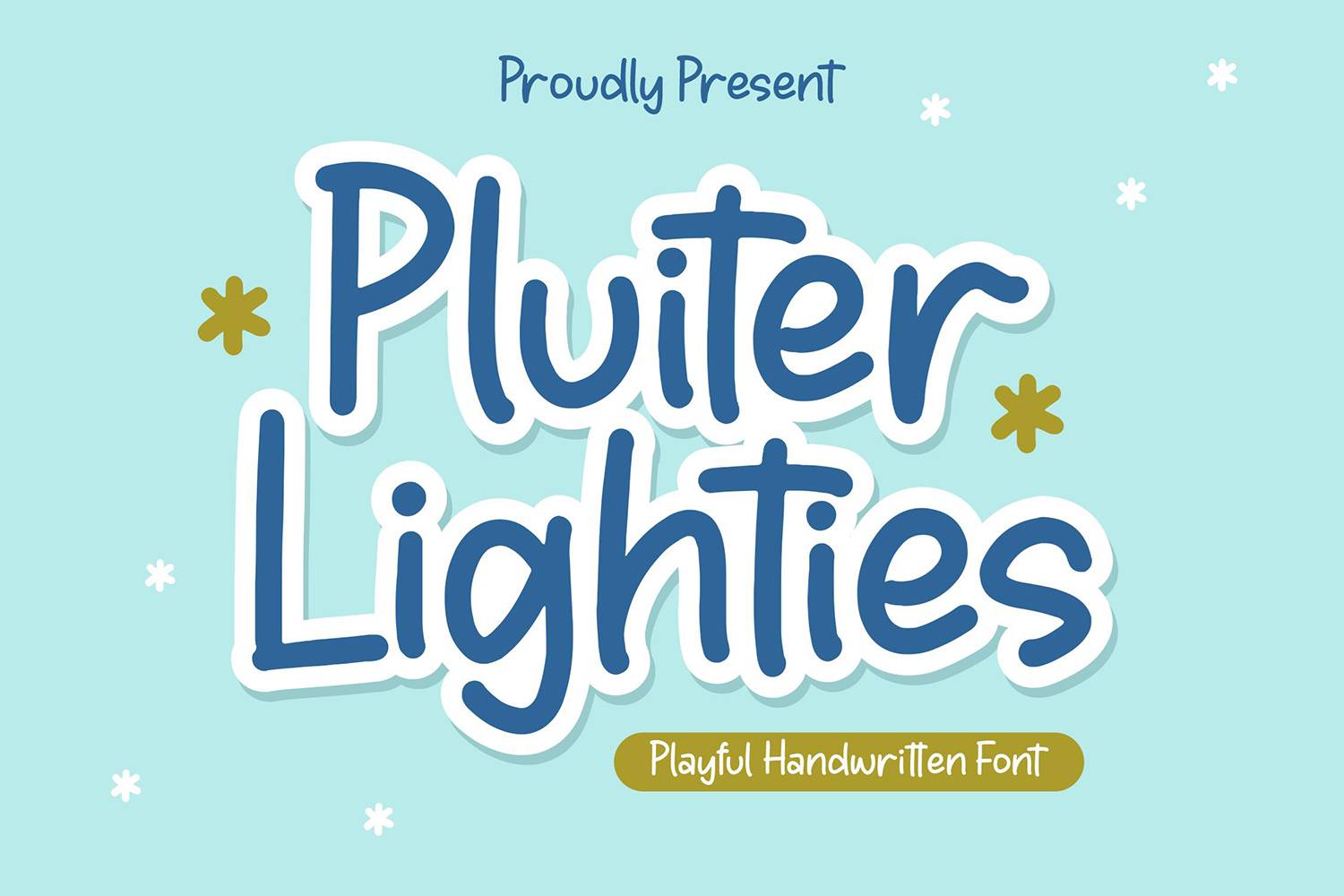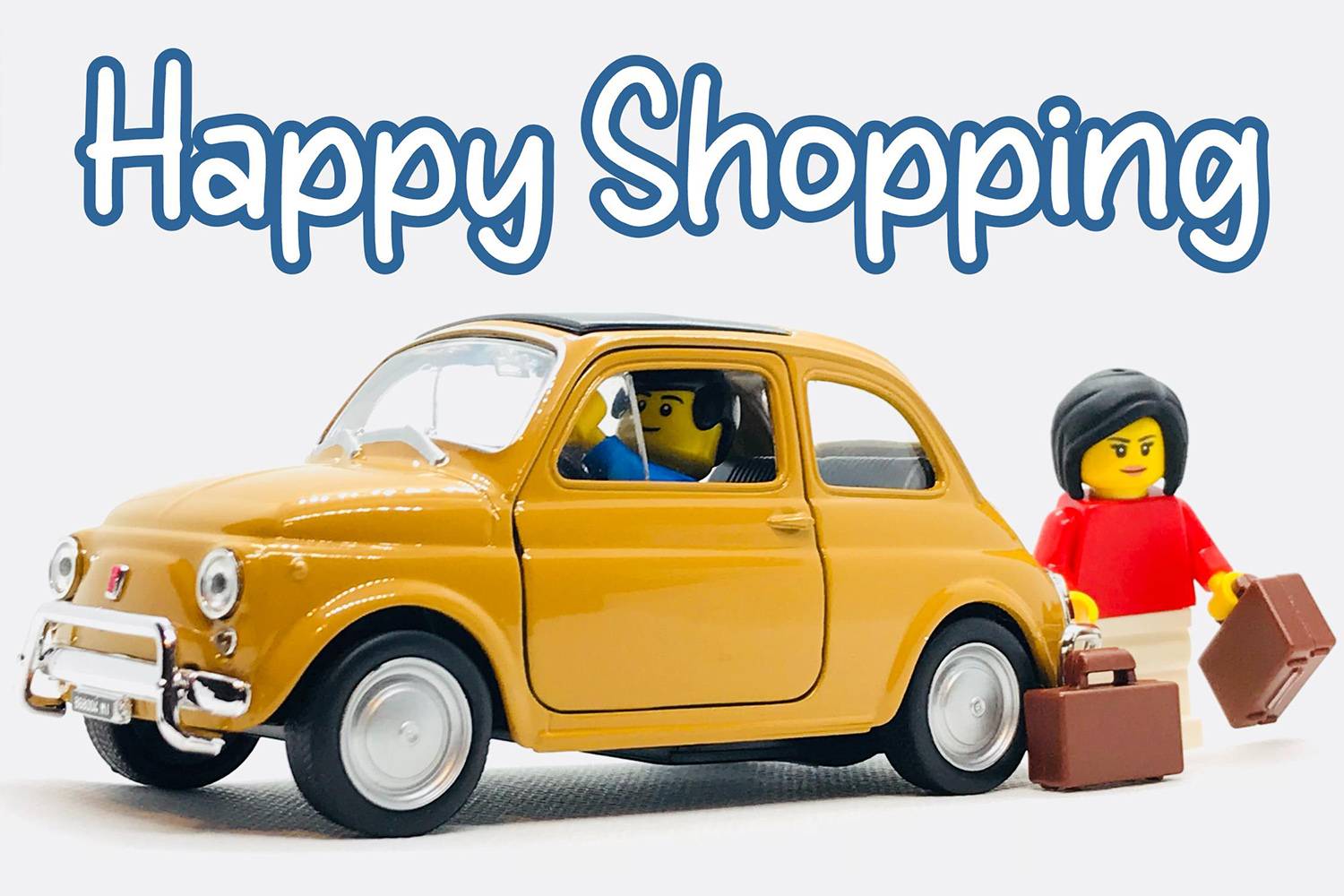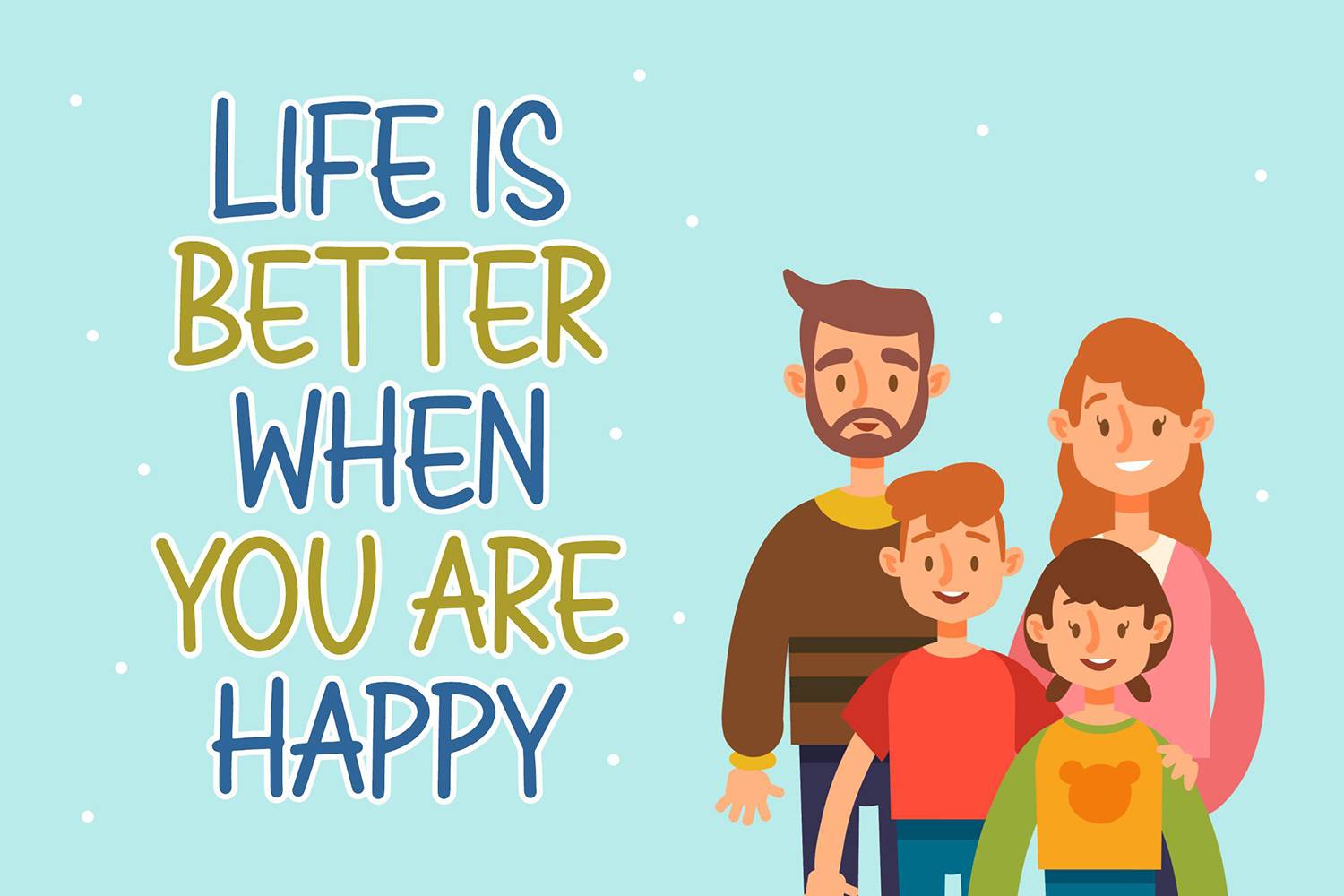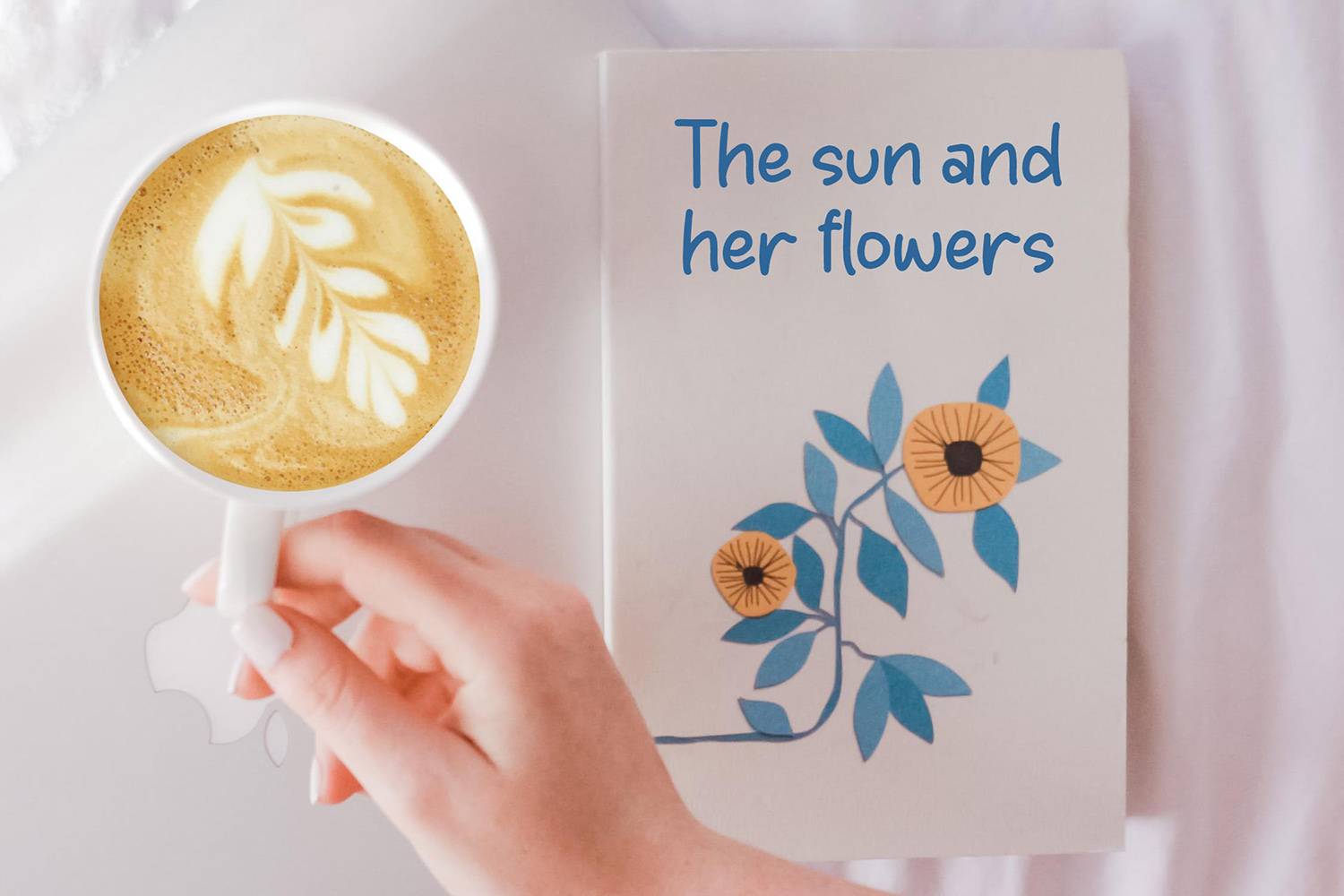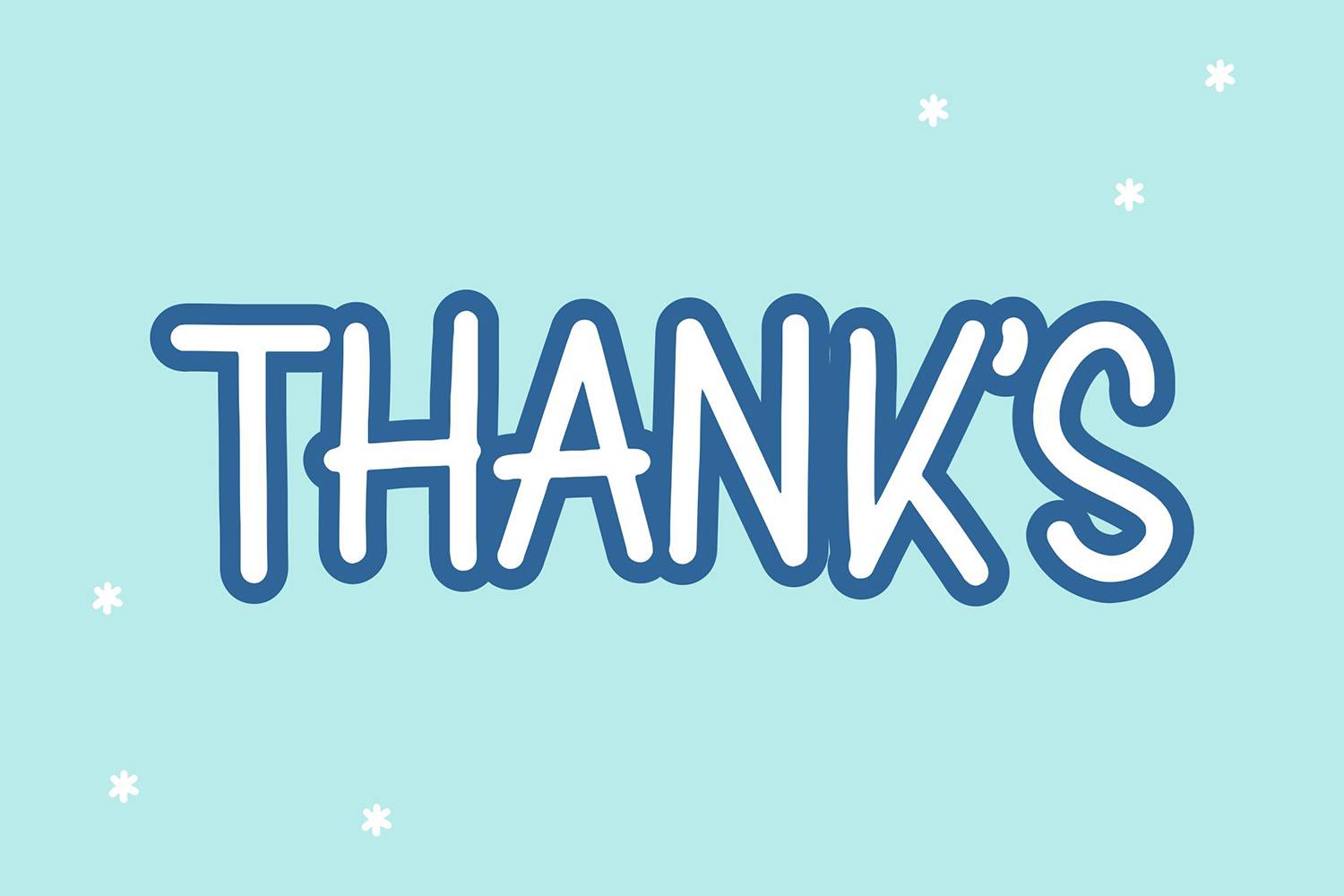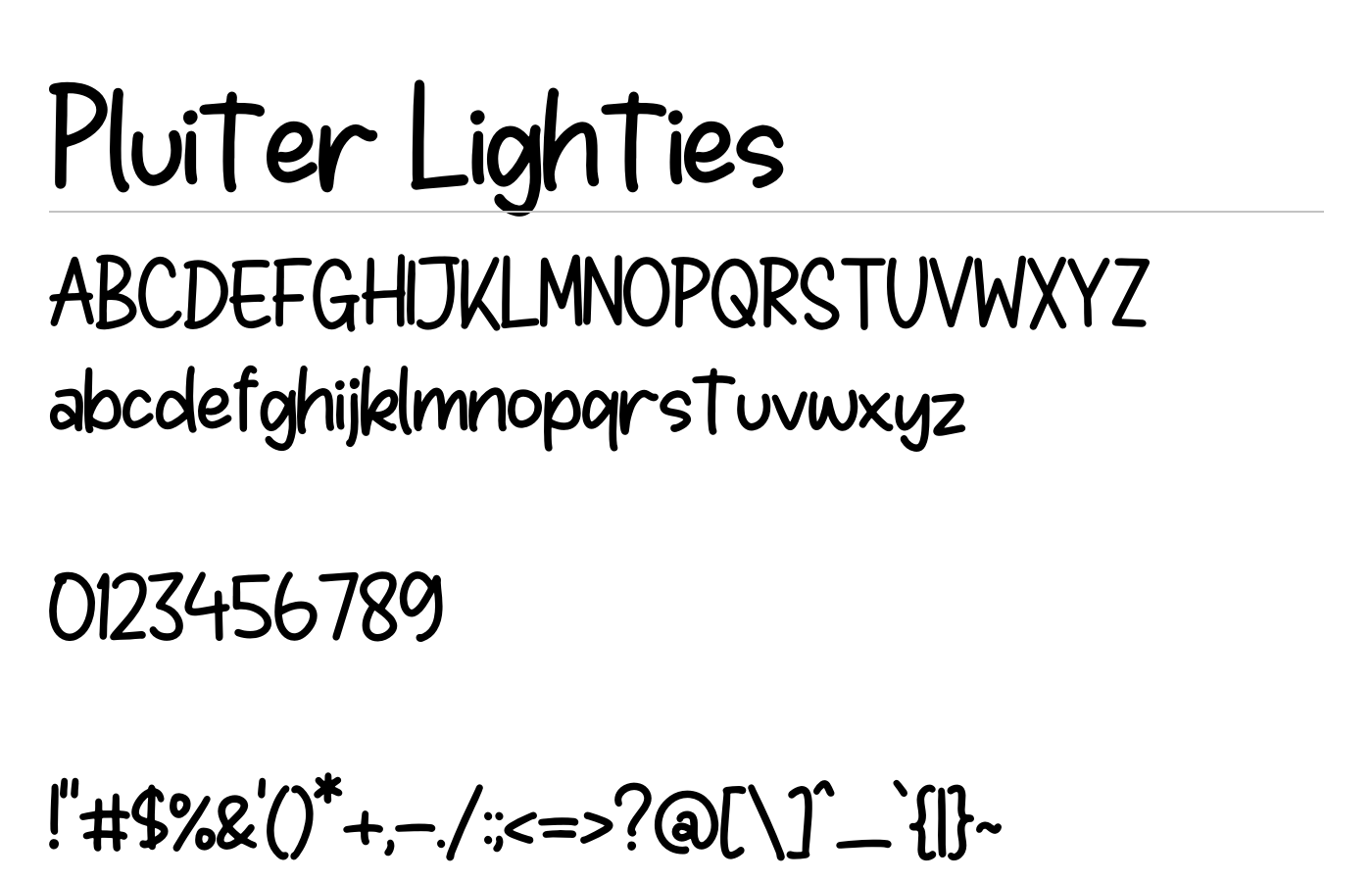
Pluiter Lighties is a playful and friendly handwritten sans serif font with a casual, slightly irregular style that mimics natural handwriting. Its light weight, tall x-height, and loosely spaced letterforms make it approachable and easy to read, ideal for informal designs, children's materials, or creative projects that want a personal touch. This font works well for logos, invitations, and websites seeking a warm, inviting vibe without feeling overly formal.
Pluiter Lighties Font
About Pluiter Lighties Font